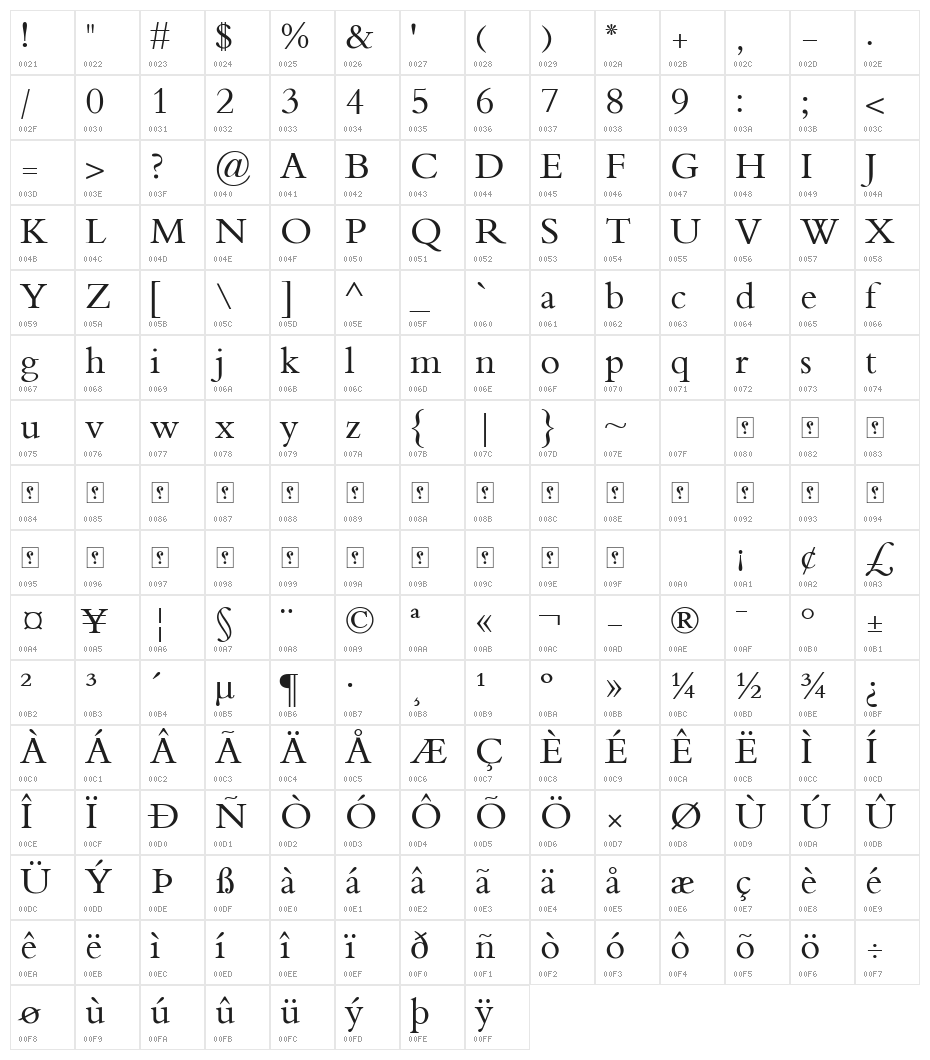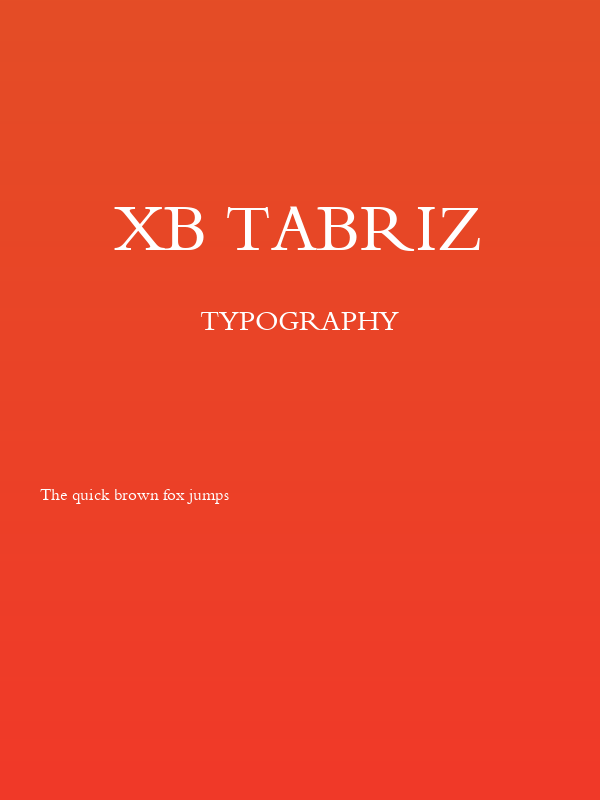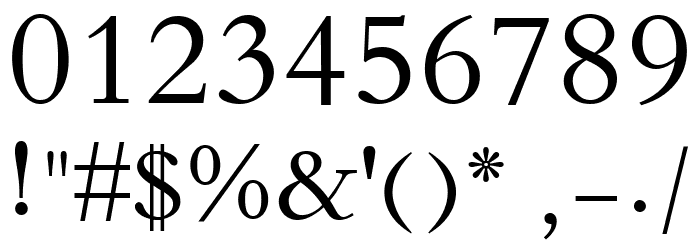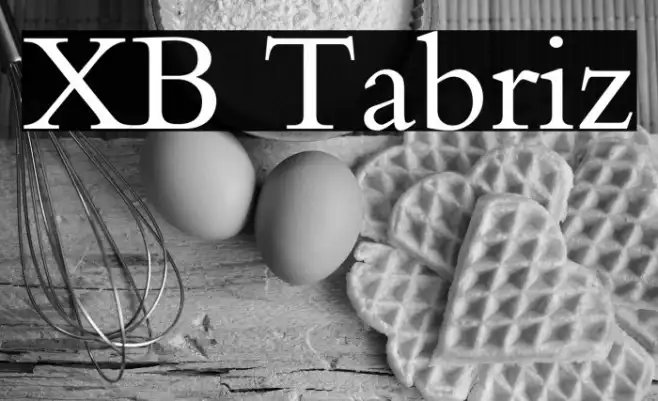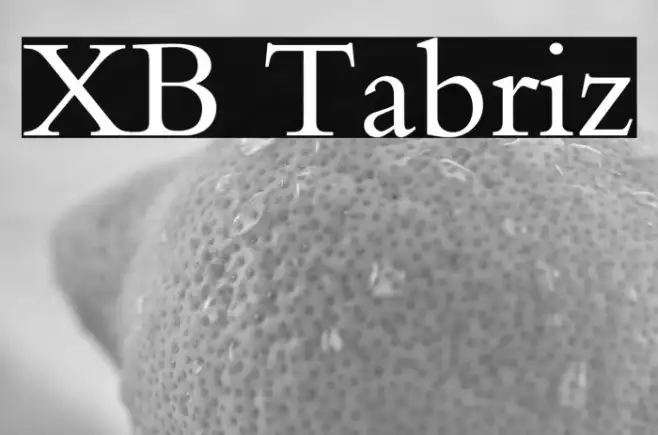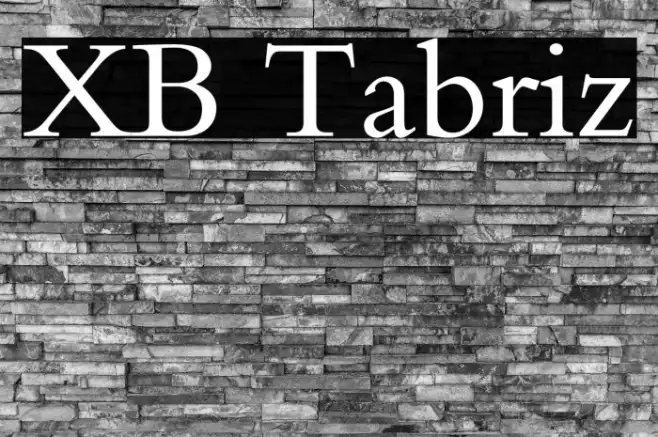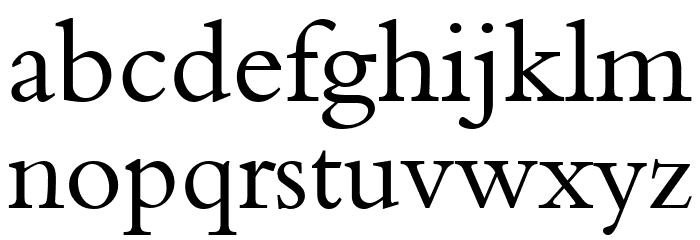
XB Tabriz Font
XB Tabriz Description
This font features a classic serif style with elegant and refined strokes. The uppercase letters are well-proportioned, with a slight contrast between thick and thin lines, giving it a sophisticated appearance. The lowercase letters maintain a consistent style, with smooth curves and sharp serifs that enhance readability. The numerals are clear and balanced, making them suitable for both display and text settings. Special characters are distinct and harmonize well with the overall design, ensuring versatility across various applications.
| Overall Style | Classic |
| Use Case | Headlines, Body text, Logos |
| Proposed Projects | Ideal for editorial design, book covers, formal invitations, and branding projects that require a touch of elegance and tradition. |